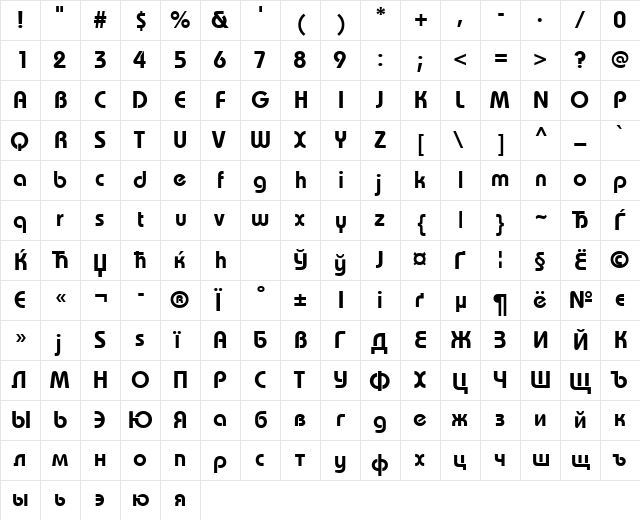
BauhausLightCTT Bold Font Preview
BauhausLightCTT Bold
Design Context for BauhausLightCTT Typeface
BauhausLightCTT offers clean, dependable letterforms without strong stylistic allegiance, making it a practical choice for designers who need flexibility. Its bold stroke weight gives it real presence on the page.